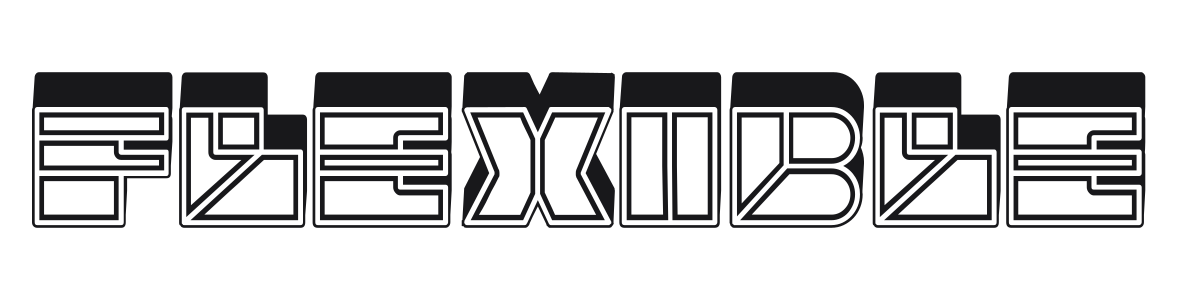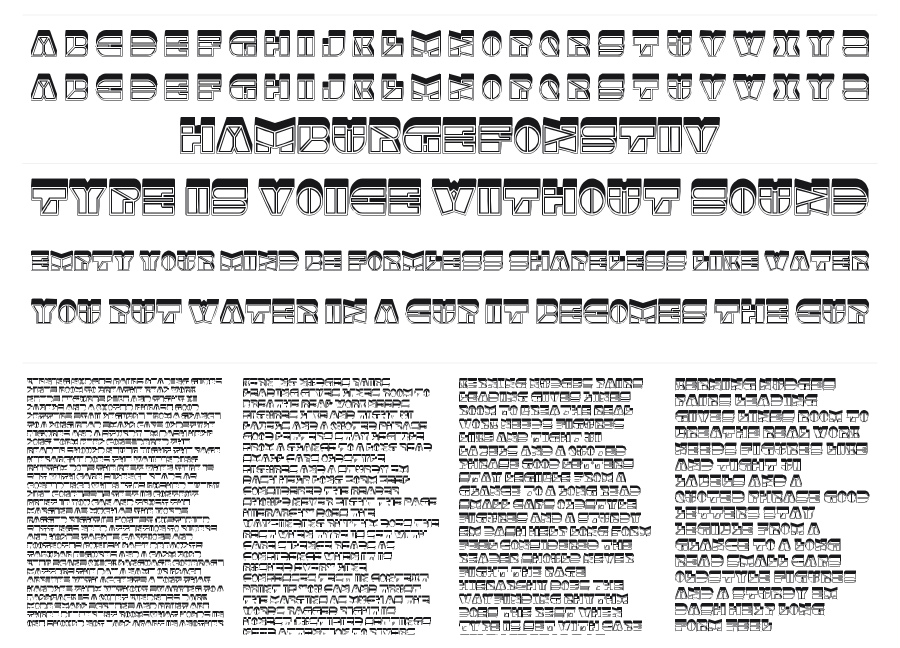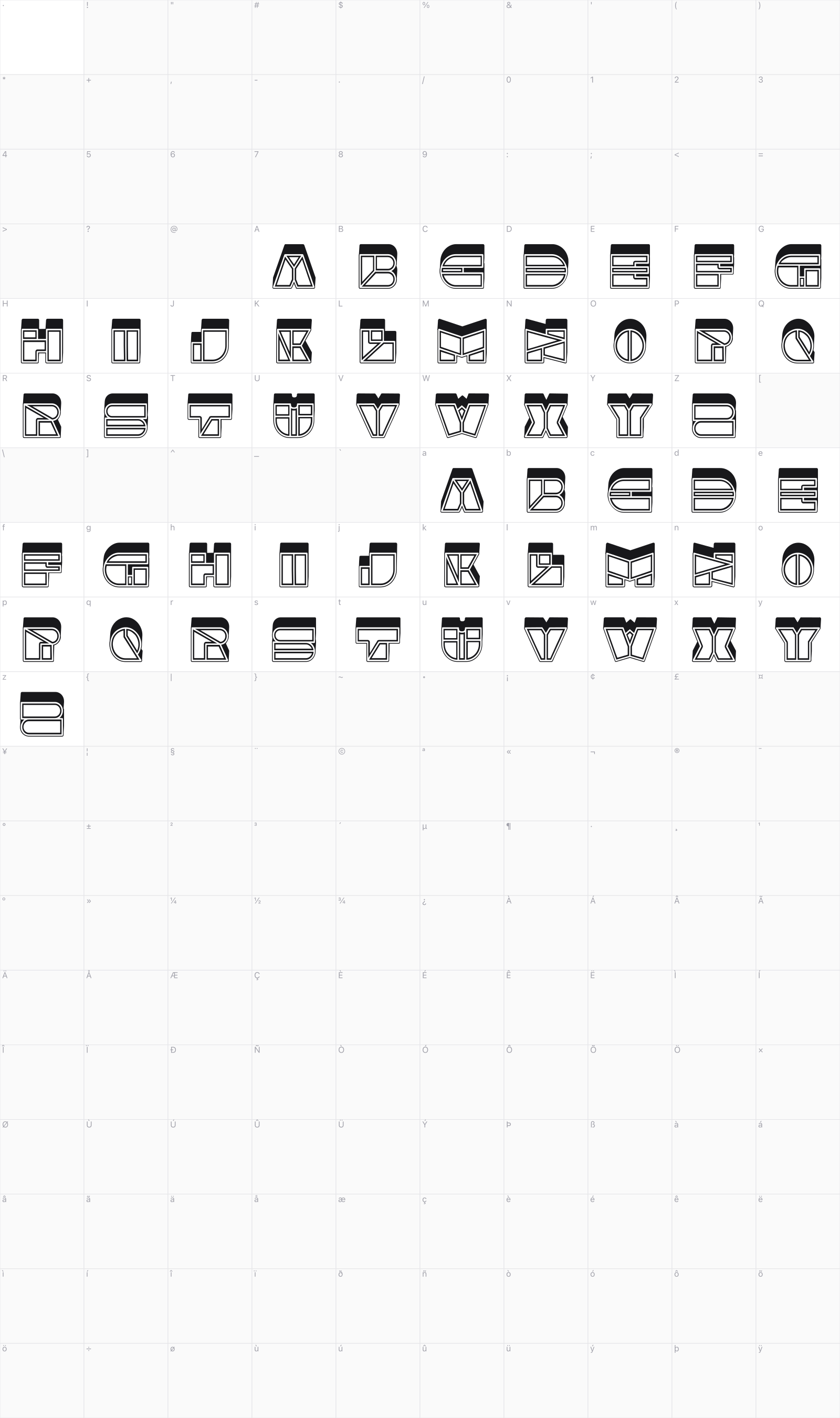
Flexible
Flexible is a chunky geometric display font built from angular, modular forms with a bold inline outline treatment that gives each character an engraved or dimensional quality. The strict rectangular construction and chamfered corners push it firmly into retro-futurist territory, somewhere between a 1970s sci-fi title card and constructivist poster art. It commands attention at large sizes and carries strong associations with gaming, entertainment, and industrial branding.